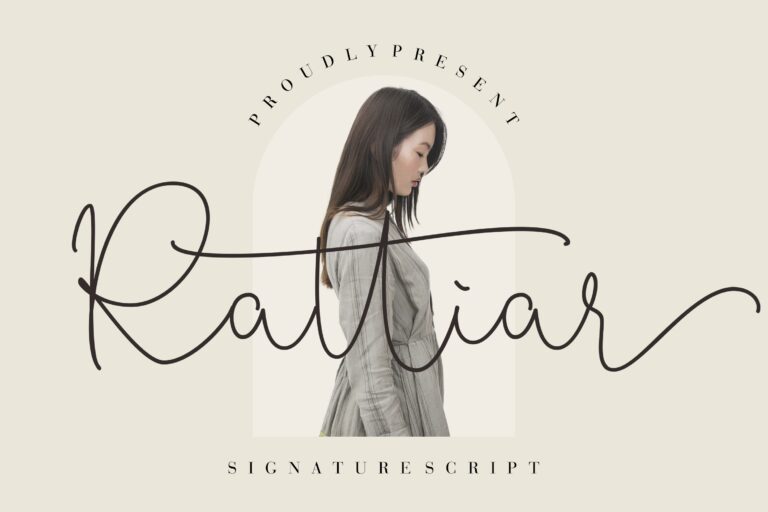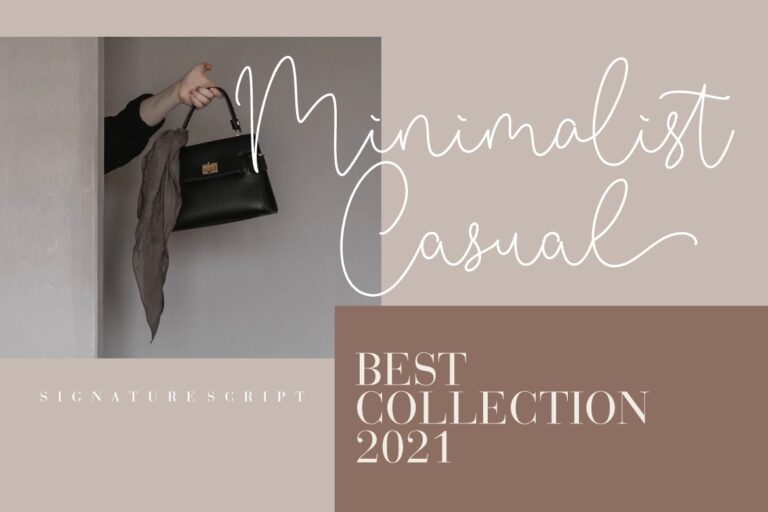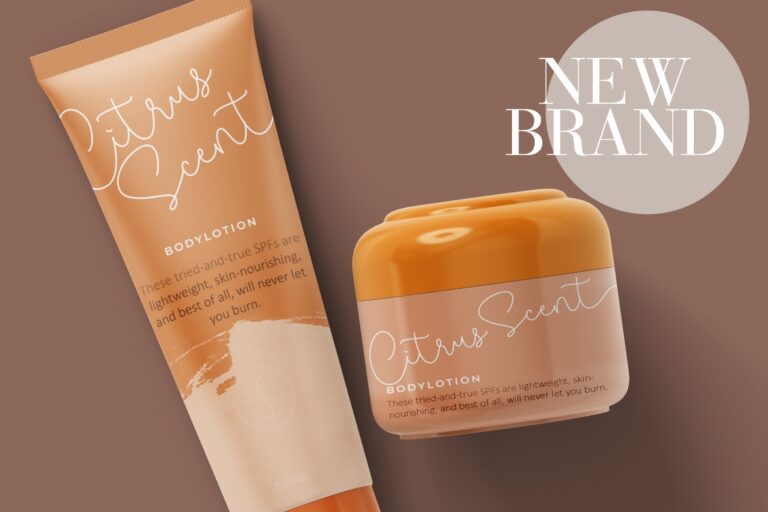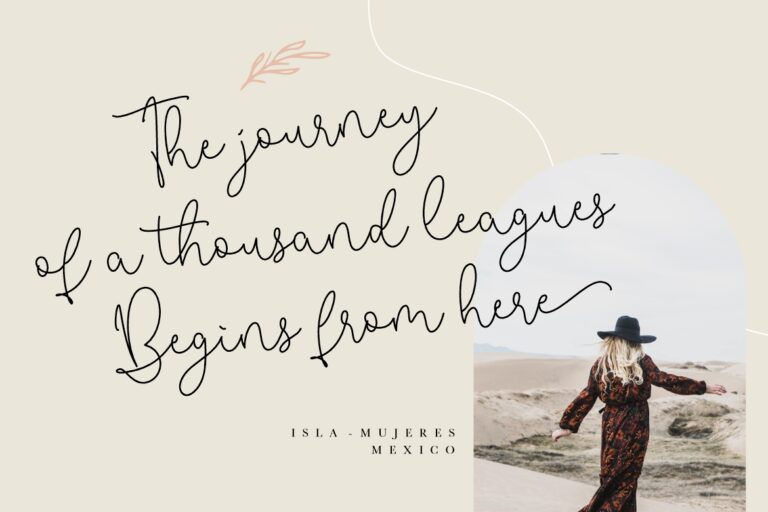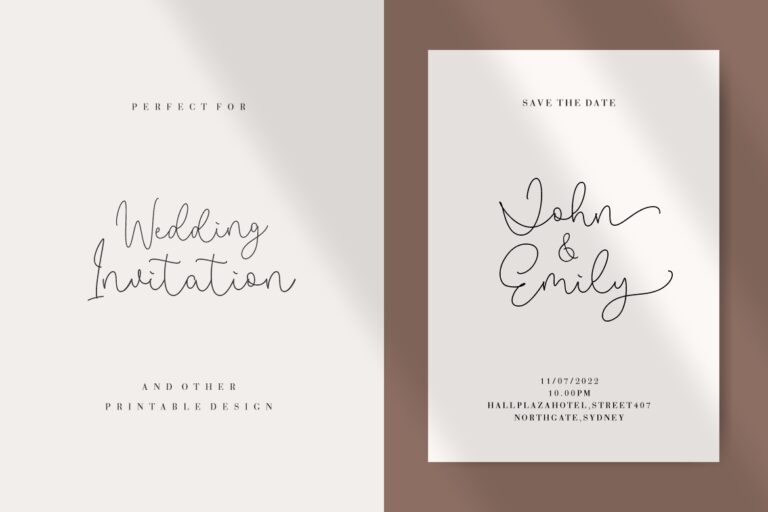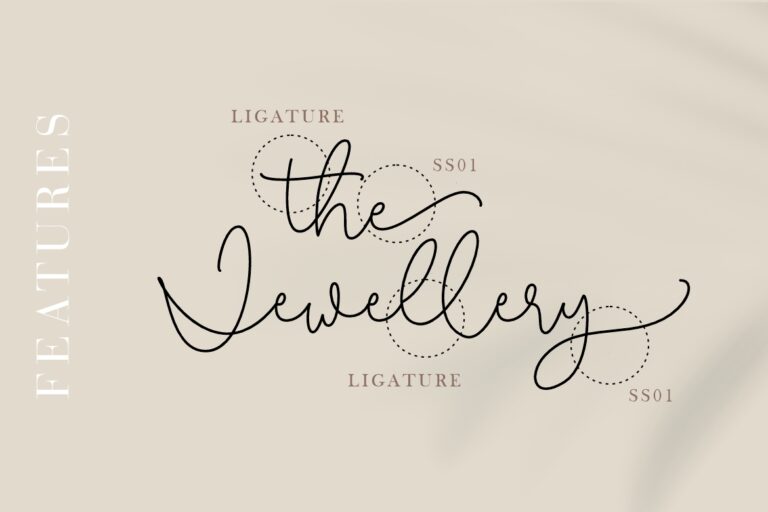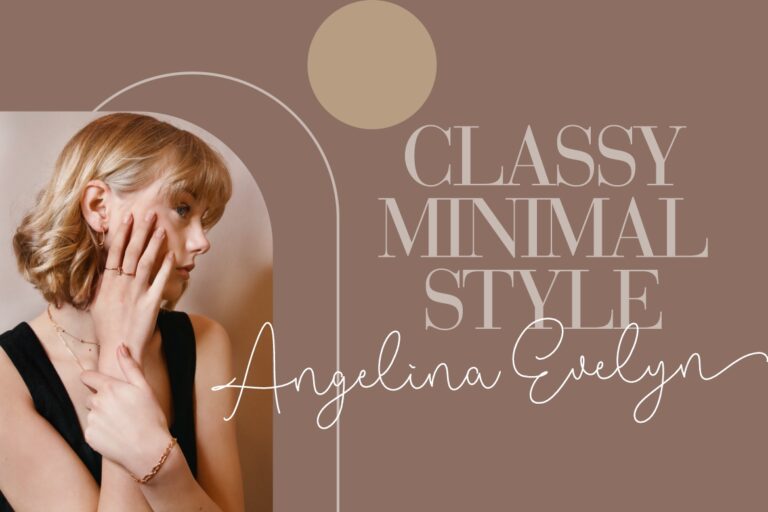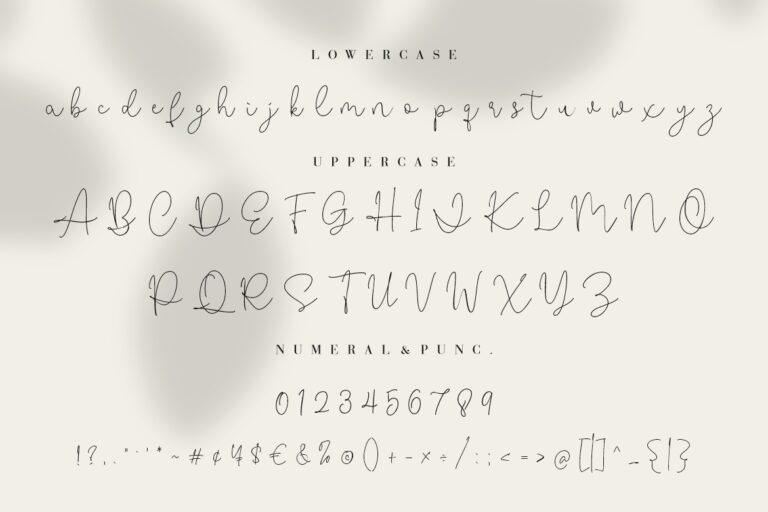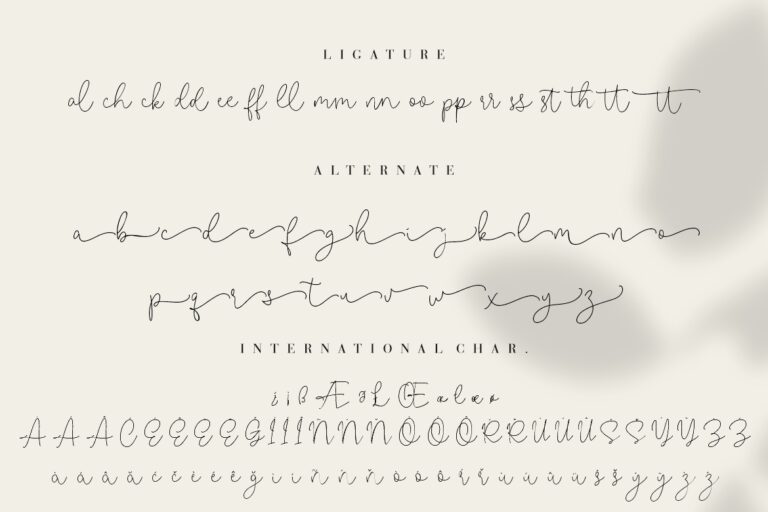
Rattiar is signature script font which looks elegant, sophisticated and classy with monoline style.
Rattiar is perfect for branding projects, logo, wedding designs, social media posts, advertisements, product packaging, product designs, label, photography, watermark, invitation, stationery and any projects that need handwriting taste.
- Fonts include multilingual support for; Afrikaans, Albanian, Czech, Danish, Dutch, English, Estonian, Finnish, French, German, Hungarian, Italian, Latvian, Lithuanian, Norwegian, Polish, Portugese, Slovak, Slovenian, Spanisch, Swedish.
Rattiar Signature Script